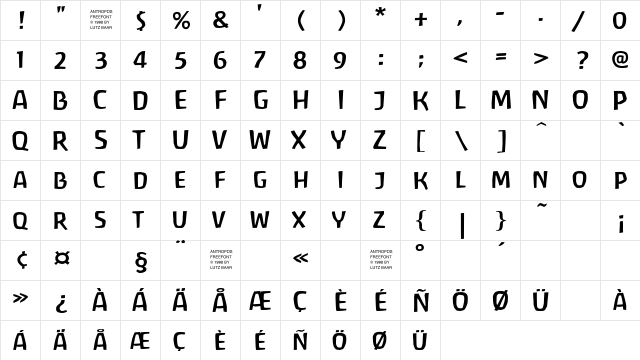
Antropos Freefont
Design Context for Antropos Typeface
Antropos offers clean, dependable letterforms without strong stylistic allegiance, making it a practical choice for designers who need flexibility.